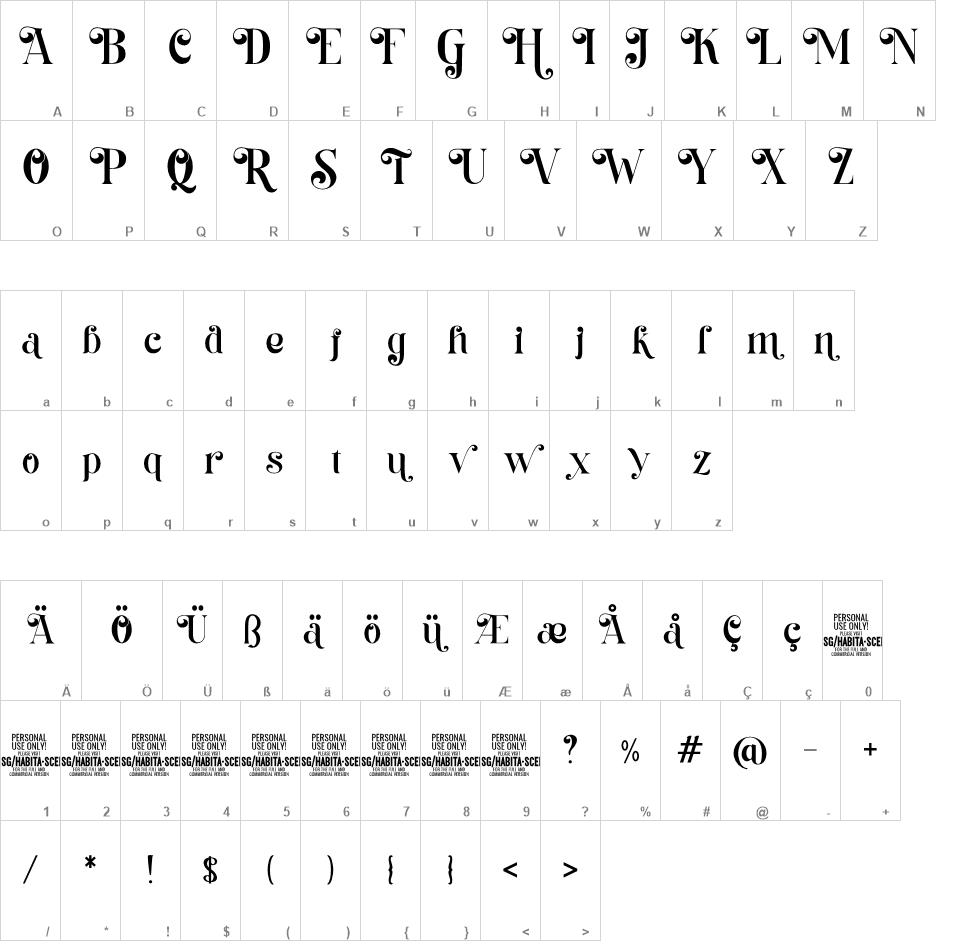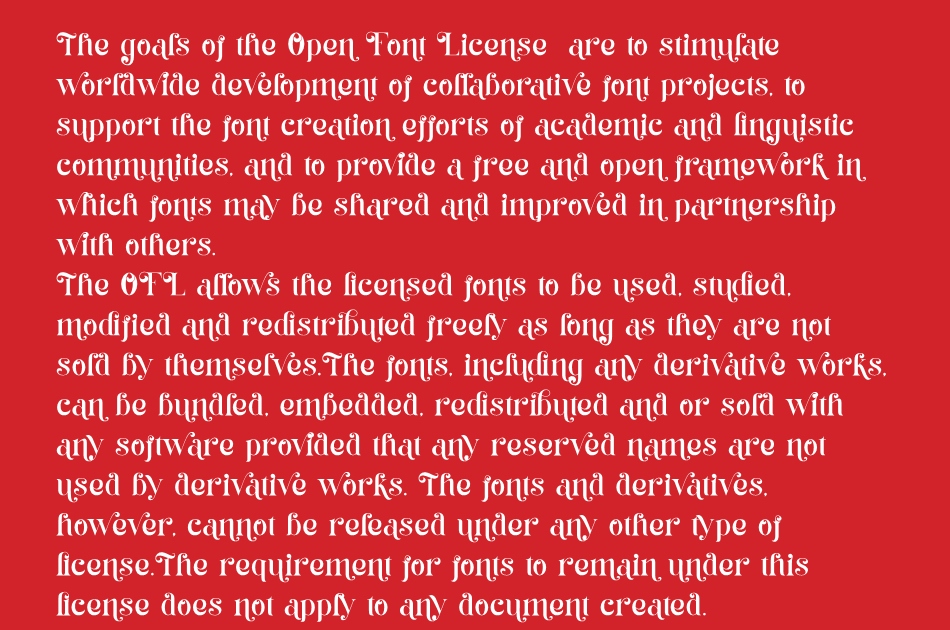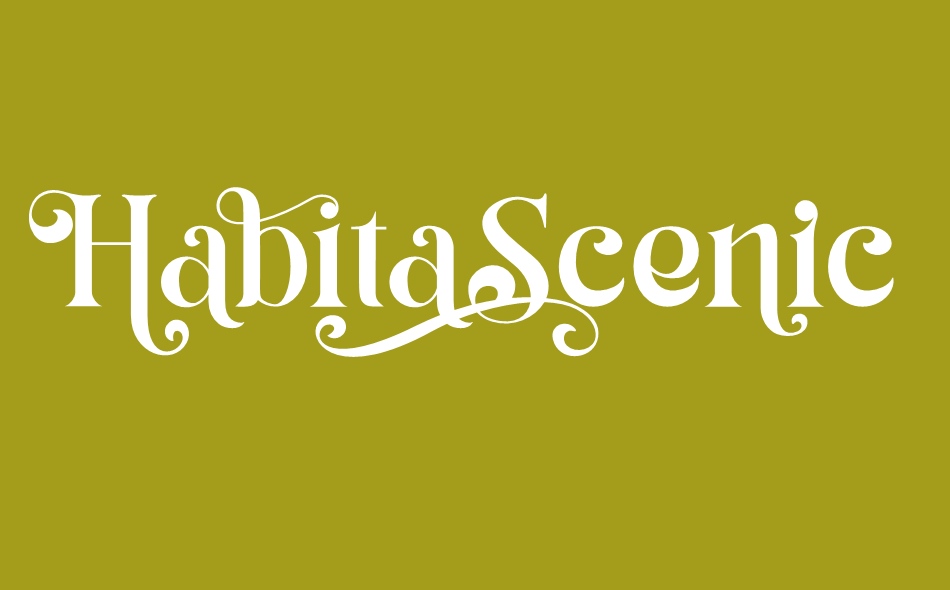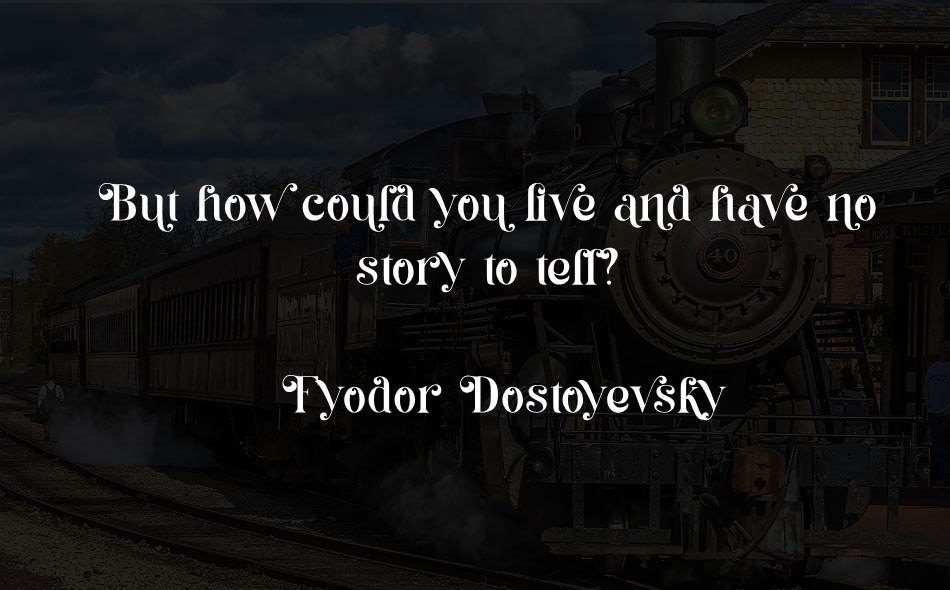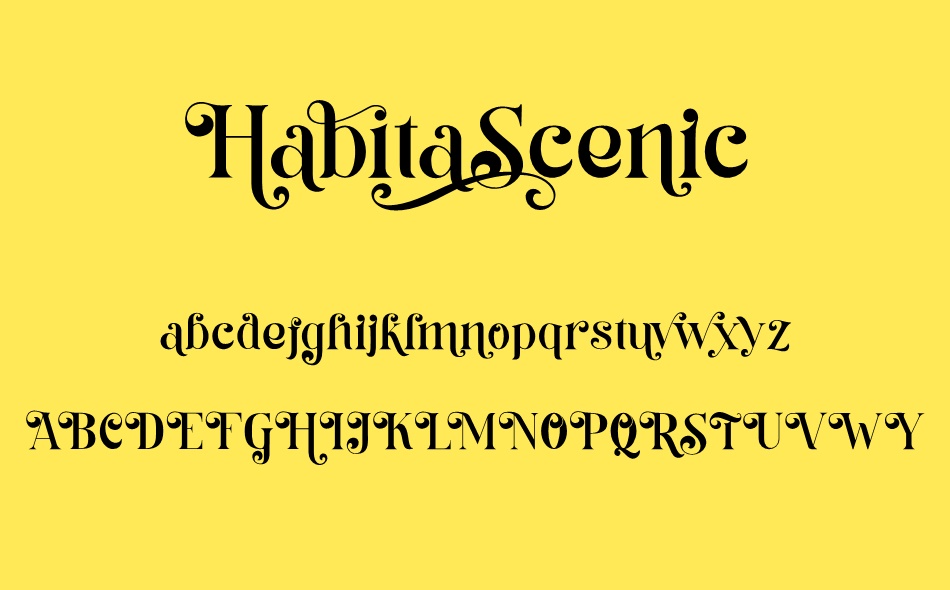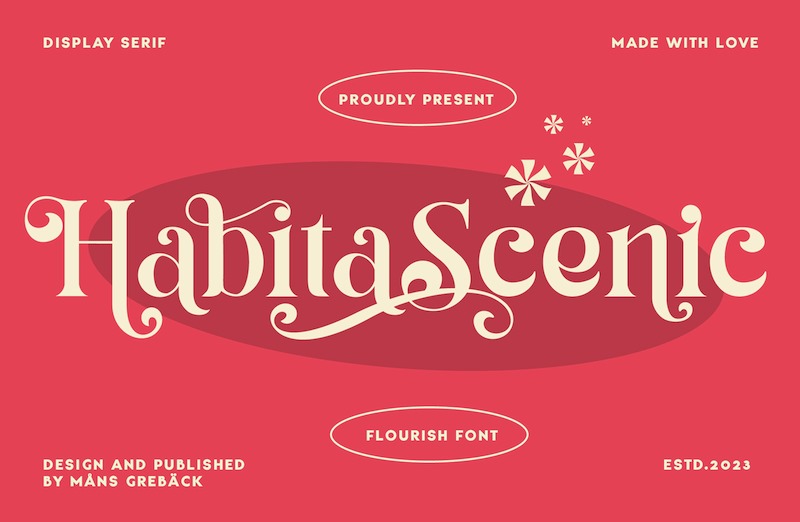
Habita Scenic font
Use underscore _ anywhere to make a swash.
Example: Love_Passion
Habita Scenic is the heavy and beautiful serif font that adds a touch of femininity and class to any project. Designed by Mans Greback in 2023, this font features high contrast and retro style, making it the perfect choice for designers looking to add a touch of cool to their work. With its beautiful swash letters, Habita Scenic is perfect for logos, headlines, and other creative projects. This font's classic and elegant design makes it an ideal choice for high-end brands and premium products. If you're looking for a font that exudes sophistication and timeless style, look no further than Habita Scenic.
Use underscore _ anywhere to make a swash. Example: Love_Passion
The Habita Scenic family consists of four high-quality fonts: Regular, Italic, Bold and Bold Italic
The font is built with advanced OpenType functionality and has a guaranteed top-notch quality, containing stylistic and contextual alternates, ligatures and more features; all to give you full control and customizability. It has extensive lingual support, covering all Latin-based languages, from Northern Europe to South Africa, from America to South-East Asia. It contains all characters and symbols you'll ever need, including all punctuation and numbers.